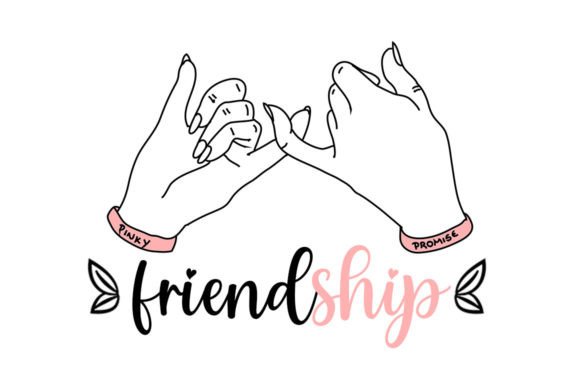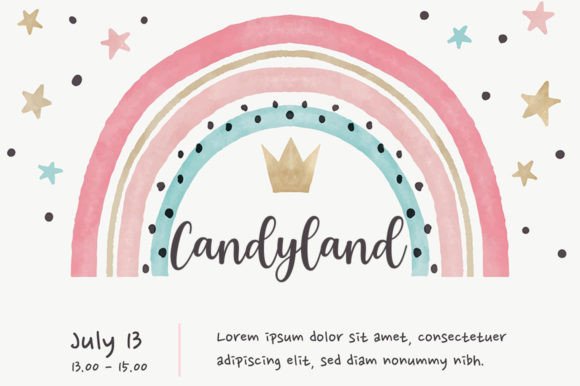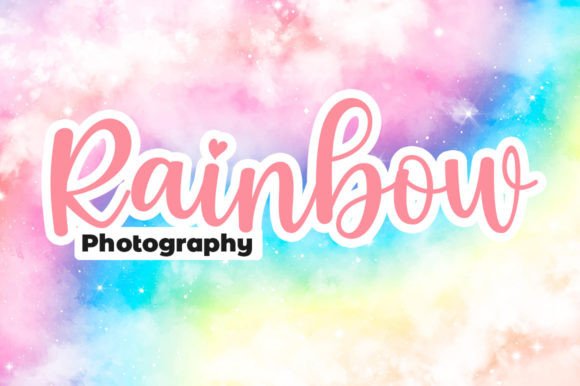
Barbie Font
Barbie is a modern calligraphy font. It is suitably used for various projects such as logos, product packaging, wedding invitations, branding, headlines, signage, labels, signatures, book covers, posters, quotes, and more.